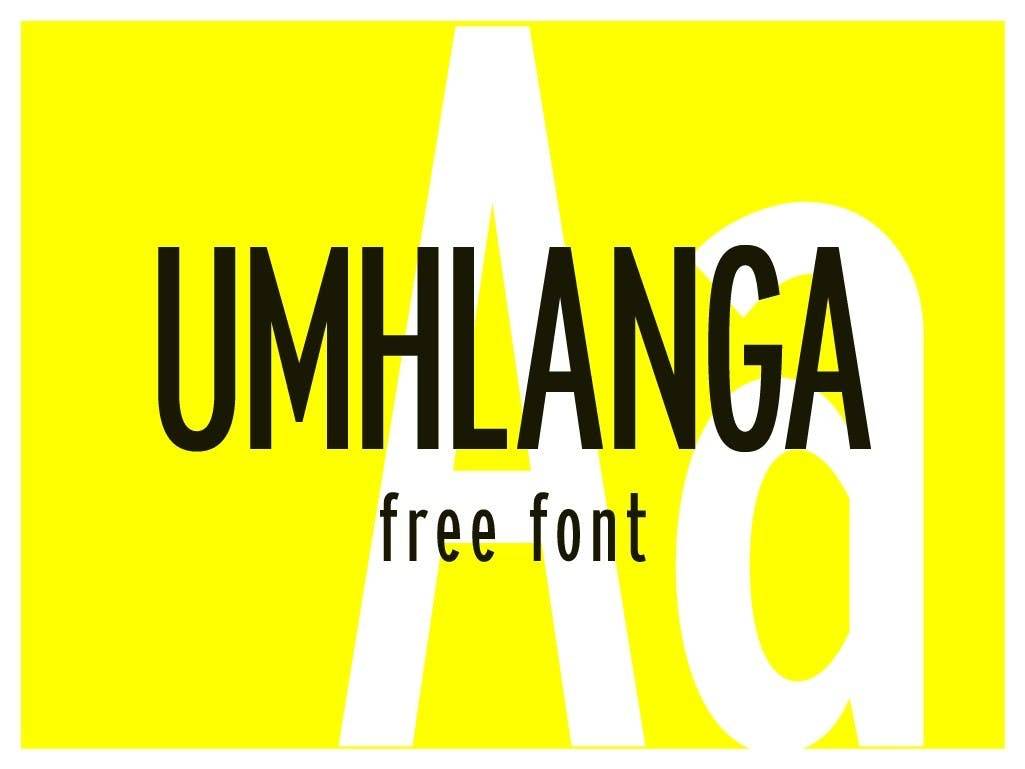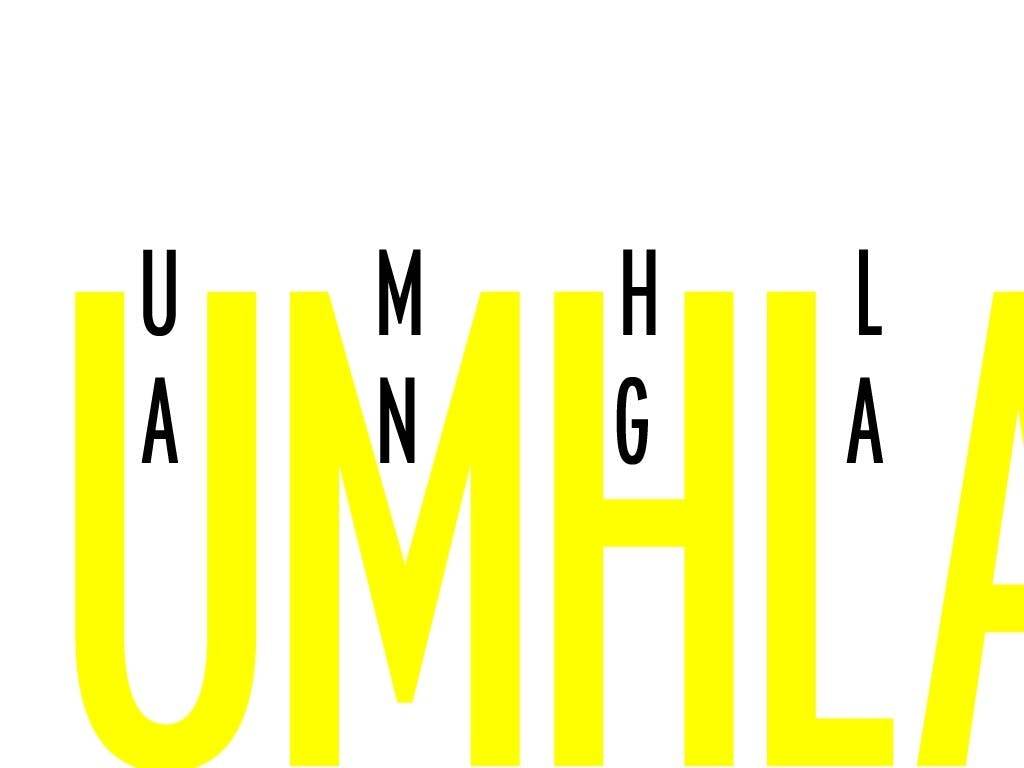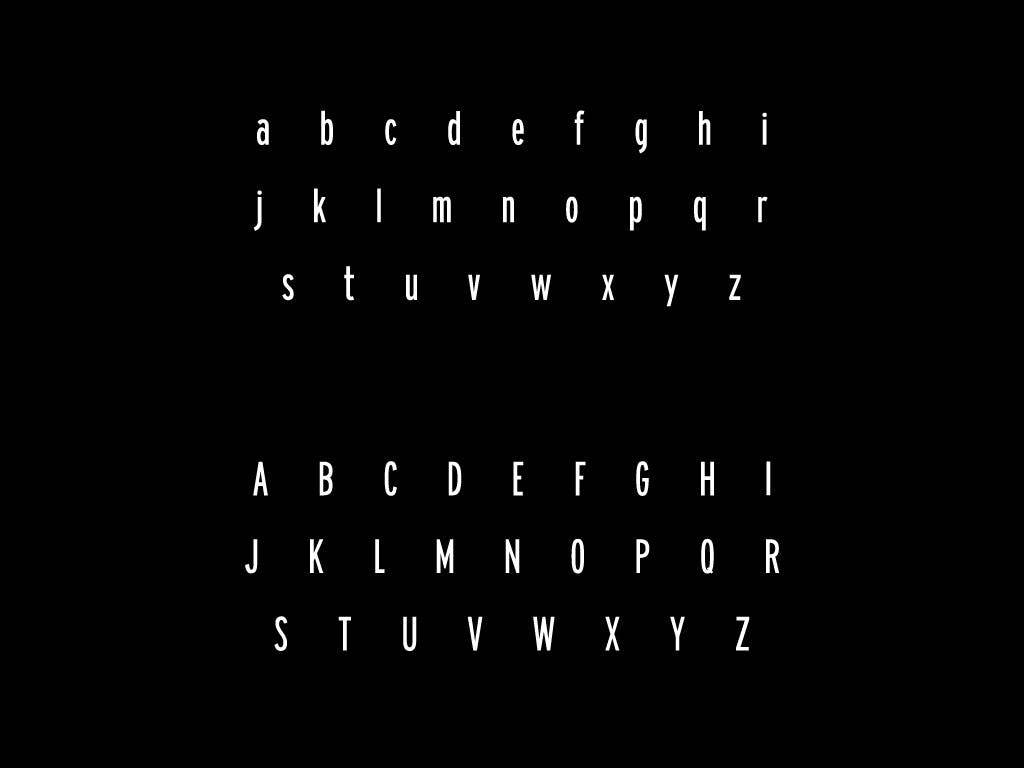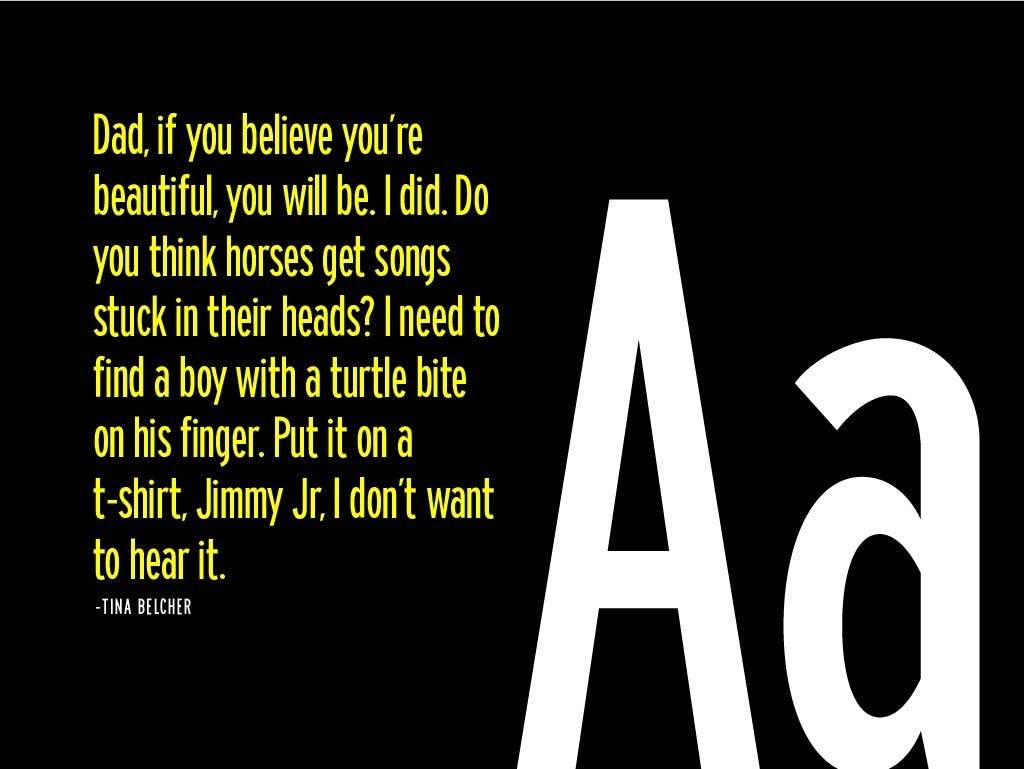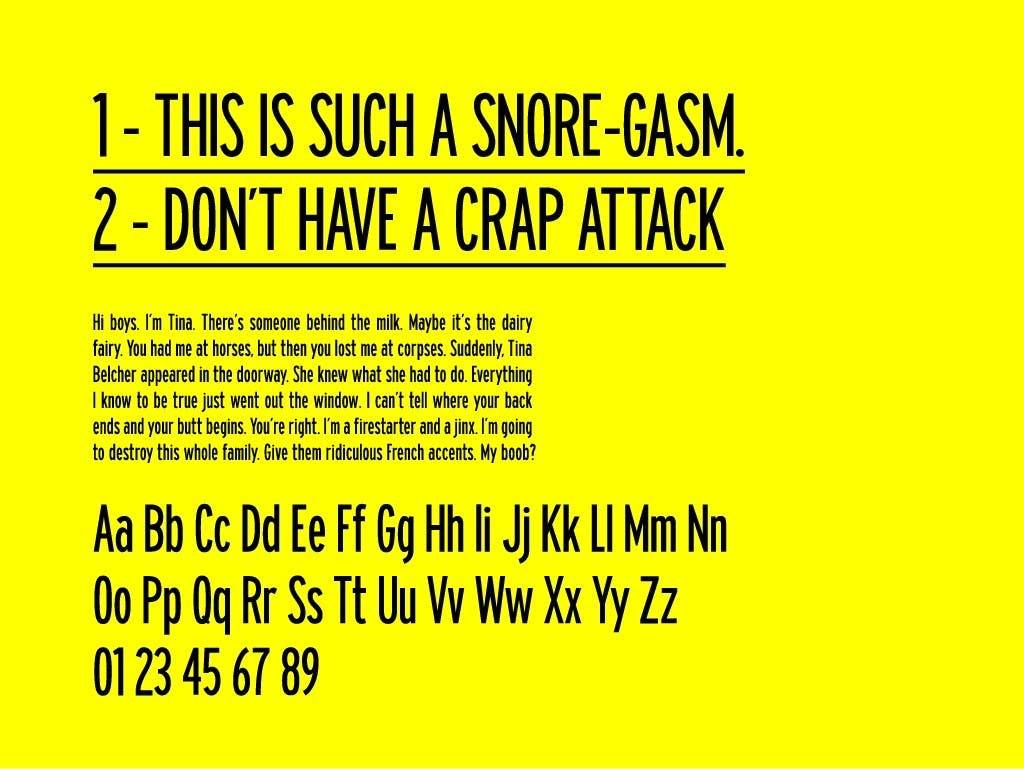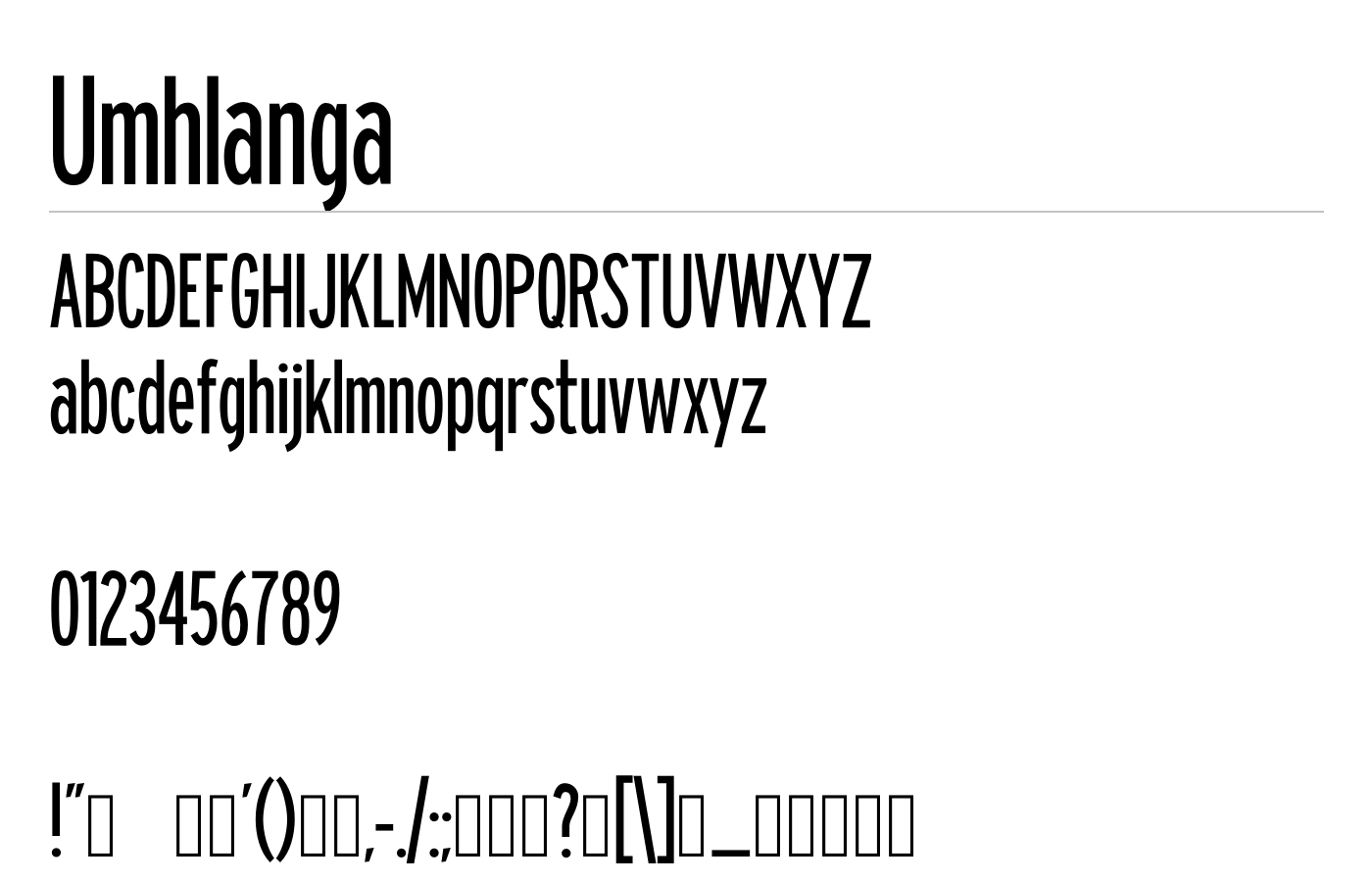
Umhlanga Sans is a sleek, condensed sans-serif font characterized by its tall, narrow letterforms and consistent stroke weight, giving it a modern and minimalist appearance. Its high x-height and clean lines make it highly readable while maintaining a distinctive, elegant style ideal for bold headlines and contemporary branding. This font works well in editorial layouts, posters, and digital interfaces where space efficiency and a confident, streamlined look are desired.
| Designer | Graham Paterson |